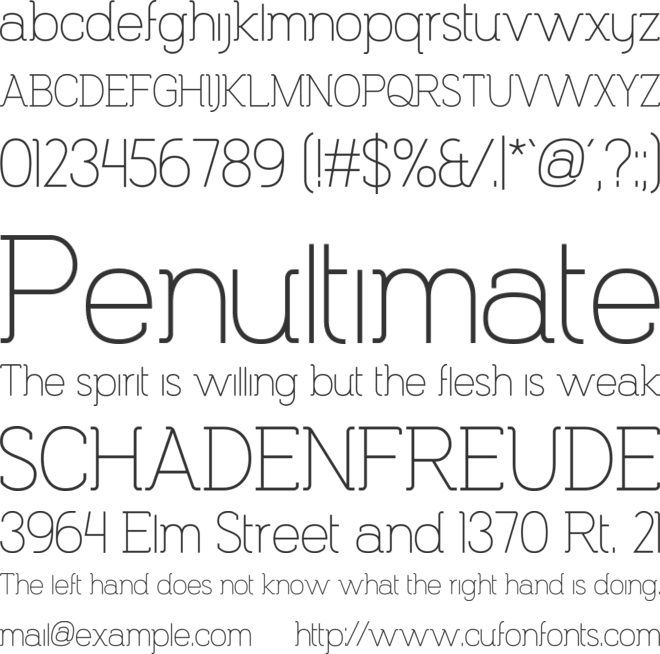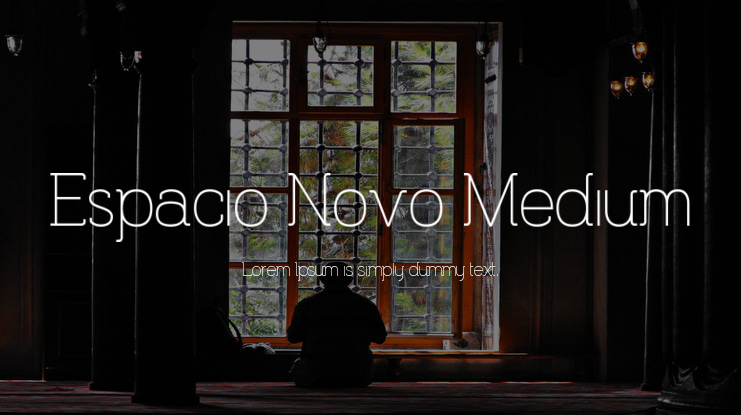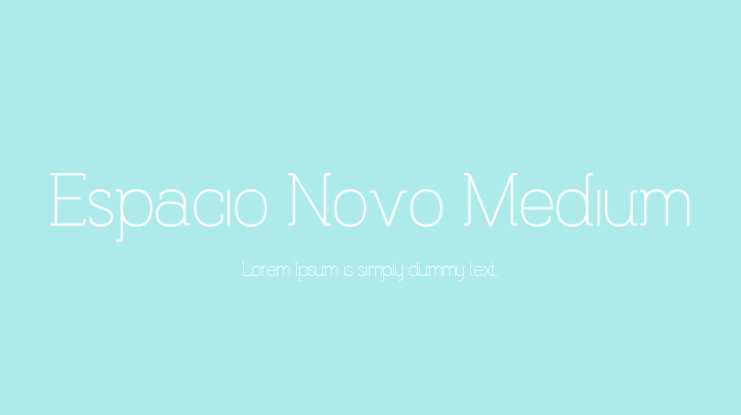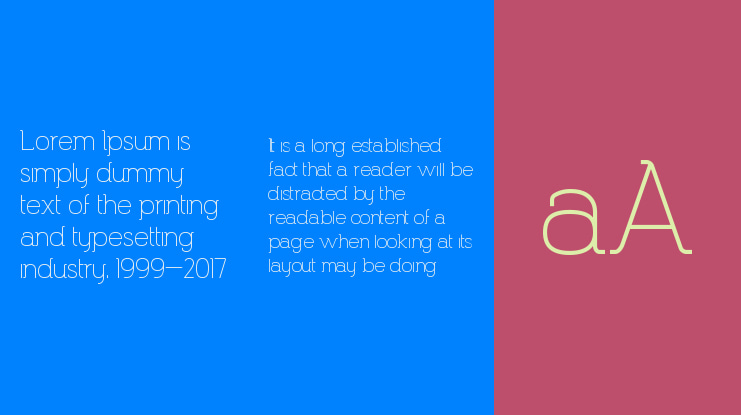
Espacio Novo Medium Font
Espacio Novo is a re-imagining of one of our earlier fonts. With slight serif accents, lovely lines and curves, and loads of charm, Espacio Novo is a perfect addition to your design arsenal.